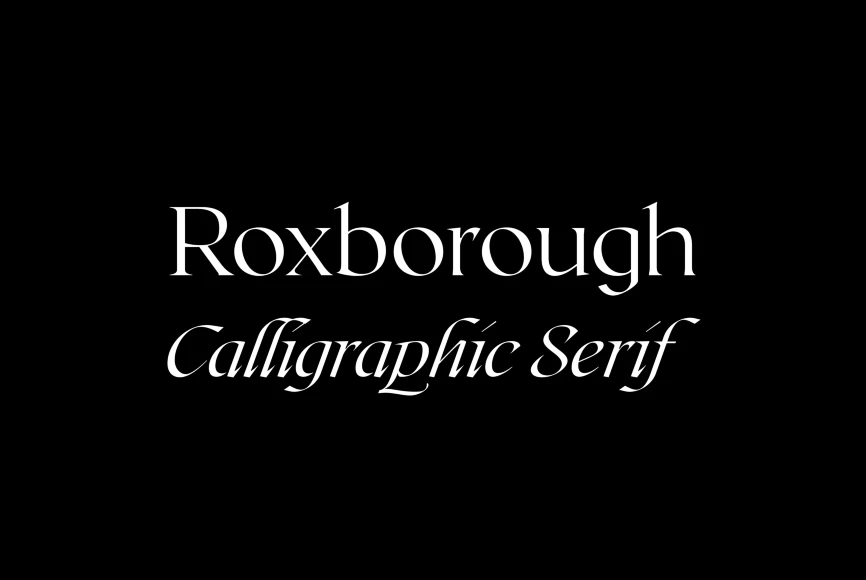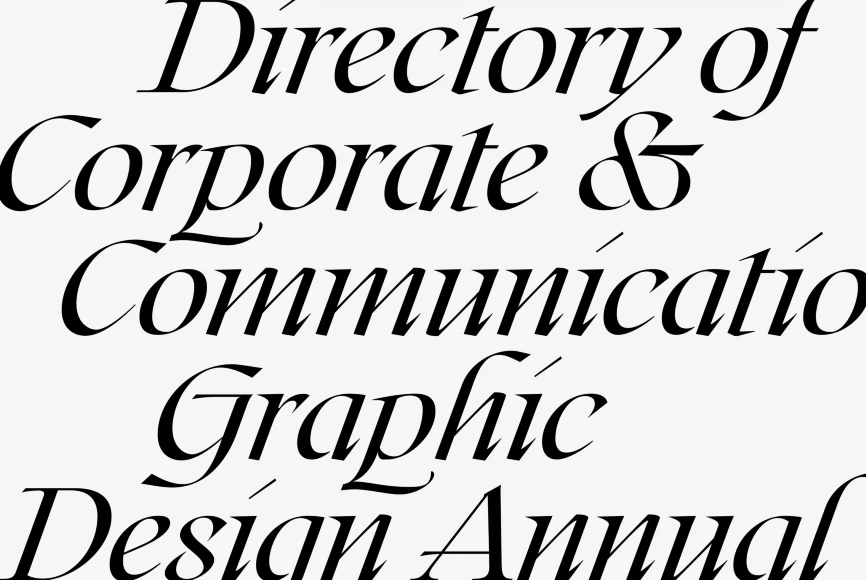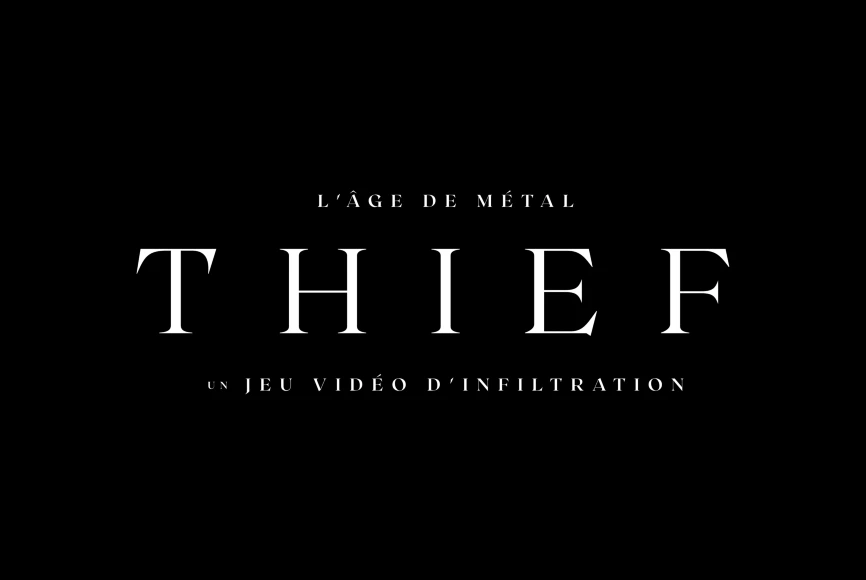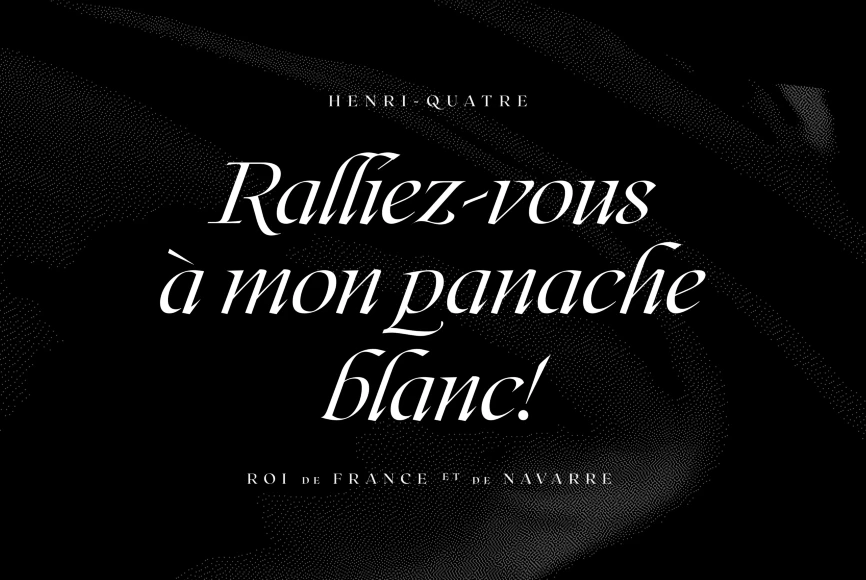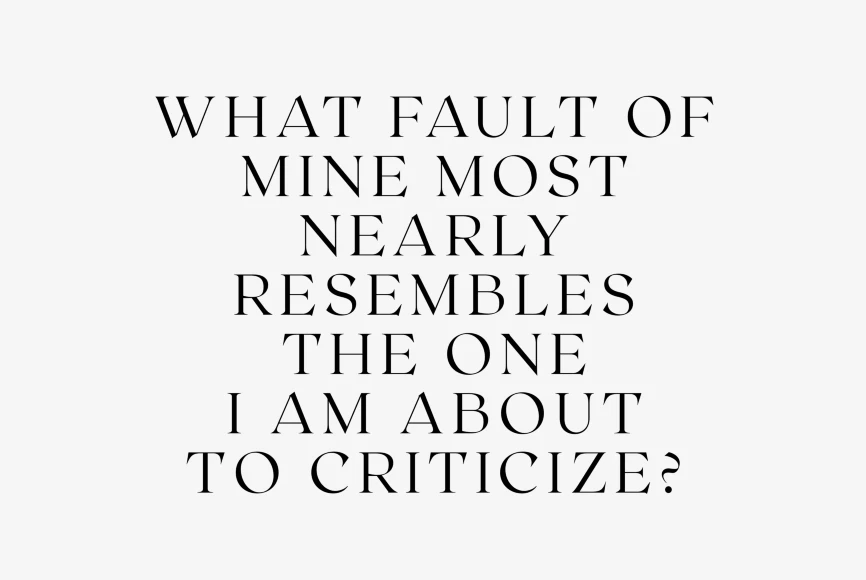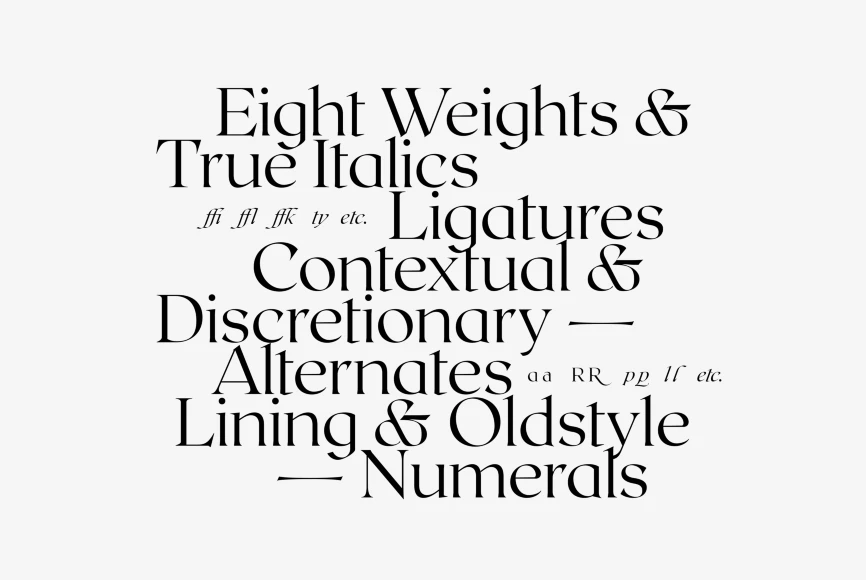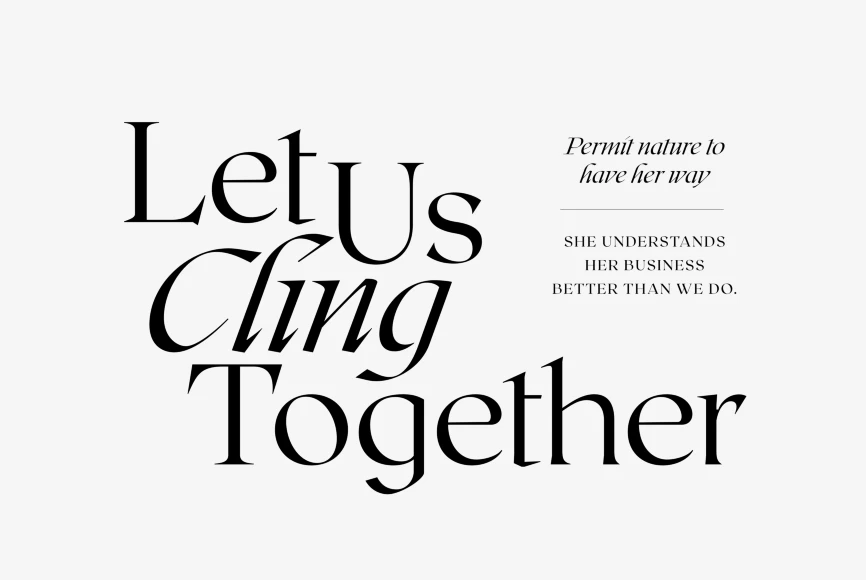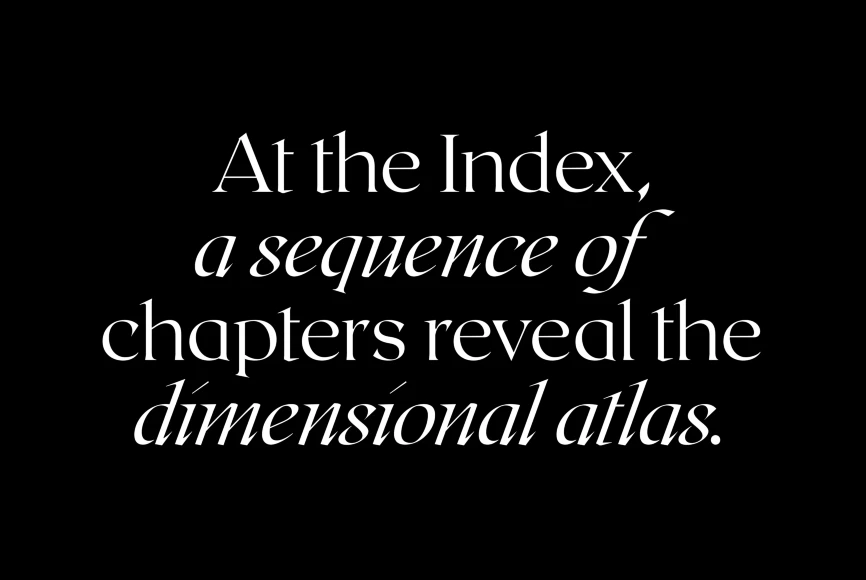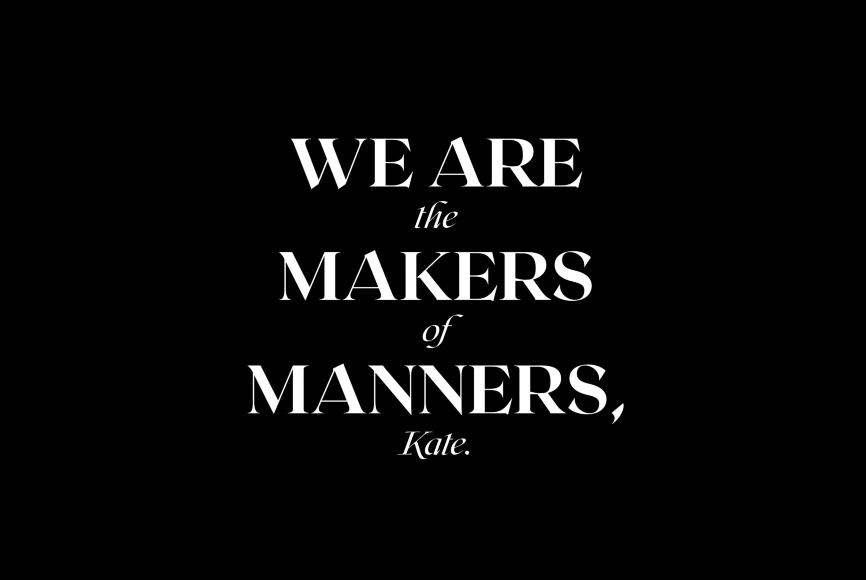
Roxborough
By Connary Fagen
Roxborough CF is a dramatic, voguish serif, influenced by calligraphy and hand lettering. Rich, open construction – built around a distinctive single-storey “a” – pairs nicely with the stylized, expressive italics. Both traditional and chic, Roxborough transforms text into art; it adapts to many applications, including branding and identity design, display and packaging design, subtitles, and copy.